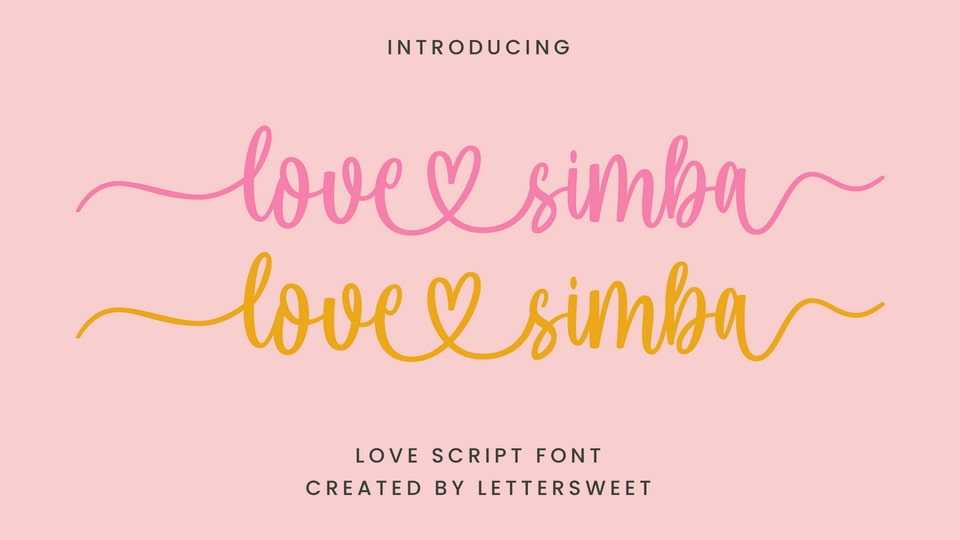
Download Love Simba font, a delicate, elegant and flowing handwritten typeface. Love Simba has beautiful and well-balanced characters and as a result, it matches a wide pool of designs.